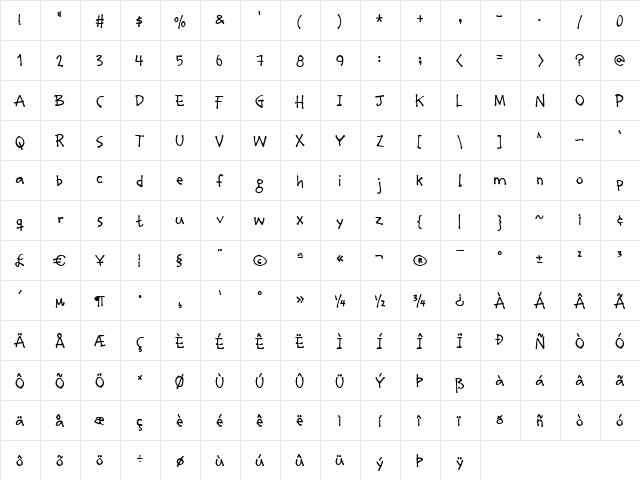
Stumbeleina Fat Regular
Design Context for Stumbeleina Fat Typeface
Stumbeleina Fat is a composed and adaptable typeface that performs quietly and consistently across a wide range of design contexts.